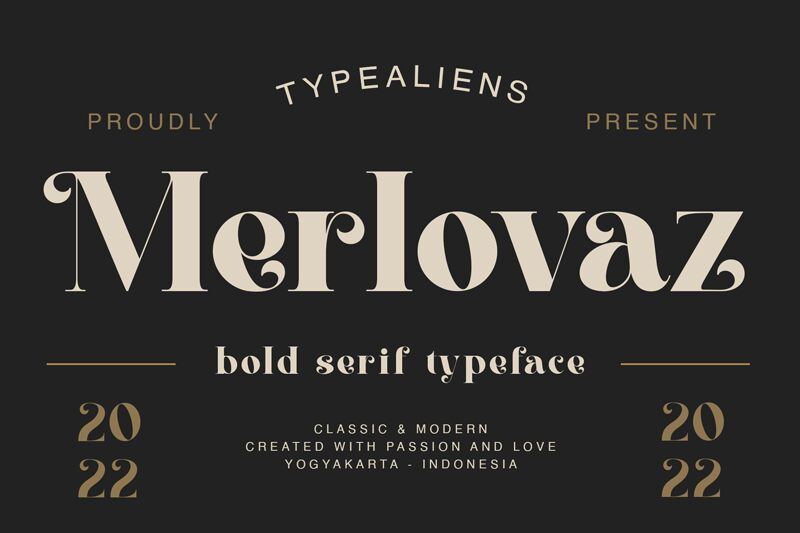
Merlovaz by ilhamtaro is a captivating display font that exudes a retro, curly charm. With its bold and playful strokes, this font captivates the eye and evokes a sense of whimsical nostalgia. The intricate, intertwining letterforms create a visually striking and visually engaging aesthetic, making Merlovaz a standout choice for designers seeking to add a touch of unique character to their projects.
The versatility of Merlovaz allows it to shine in a variety of design applications, from eye-catching headlines and logos to distinctive branding and packaging. Its bold and expressive nature makes it an excellent choice for adding a touch of retro-inspired flair to posters, book covers, and other creative projects that aim to capture a vintage or artisanal vibe. Merlovaz's unique personality is sure to leave a lasting impression on audiences and help designers craft memorable, visually engaging designs.